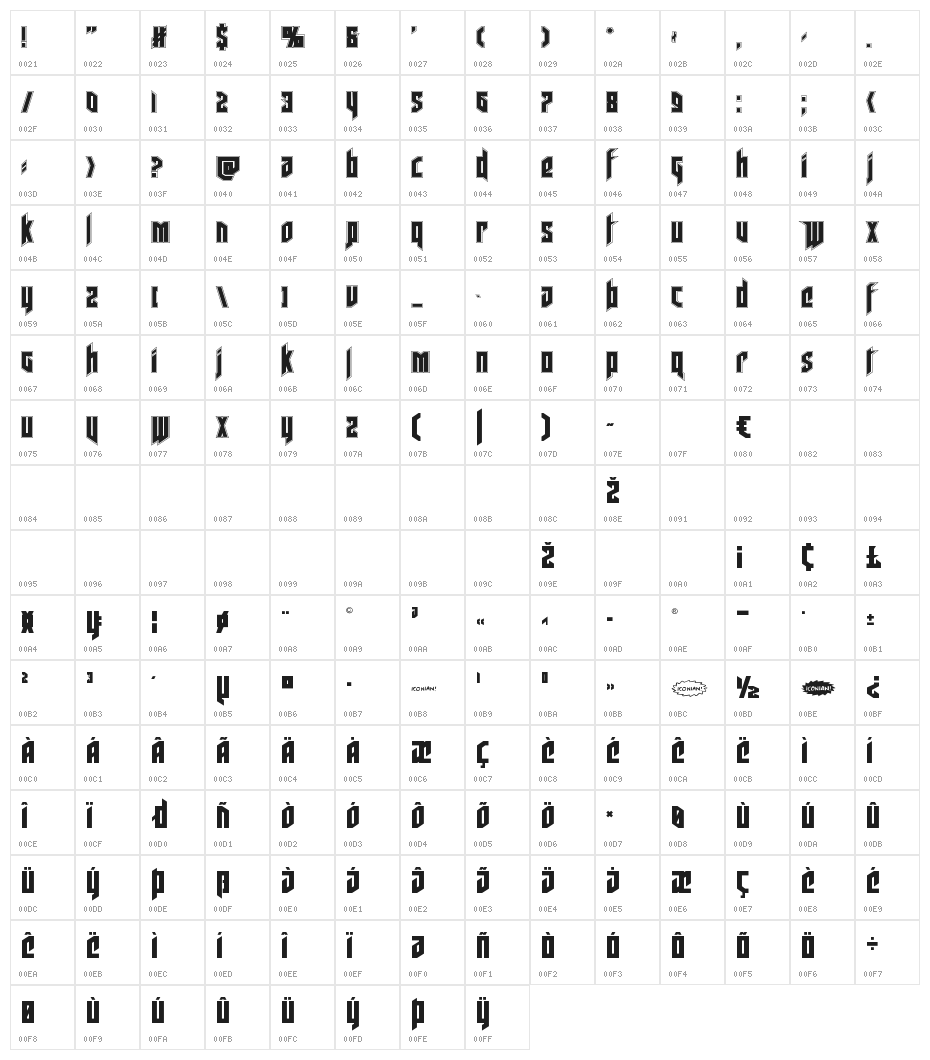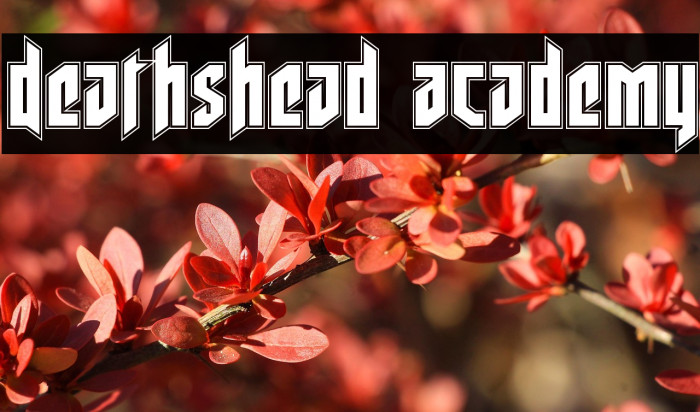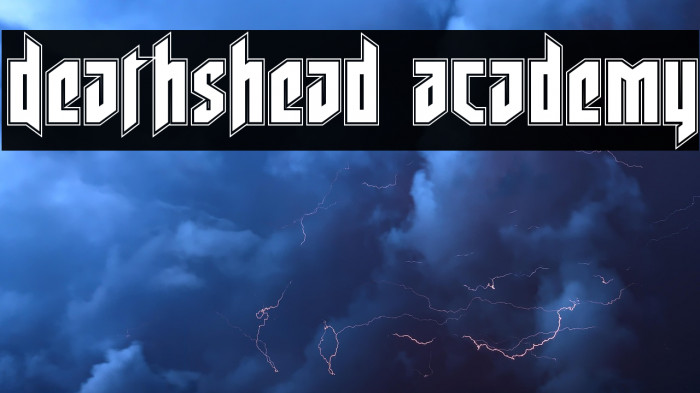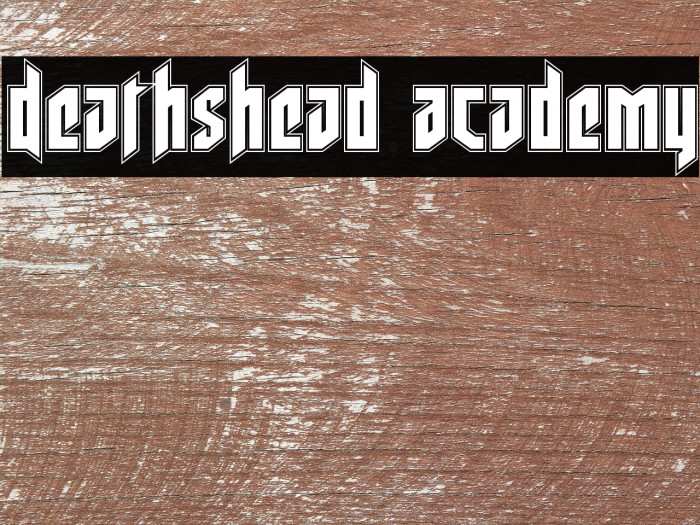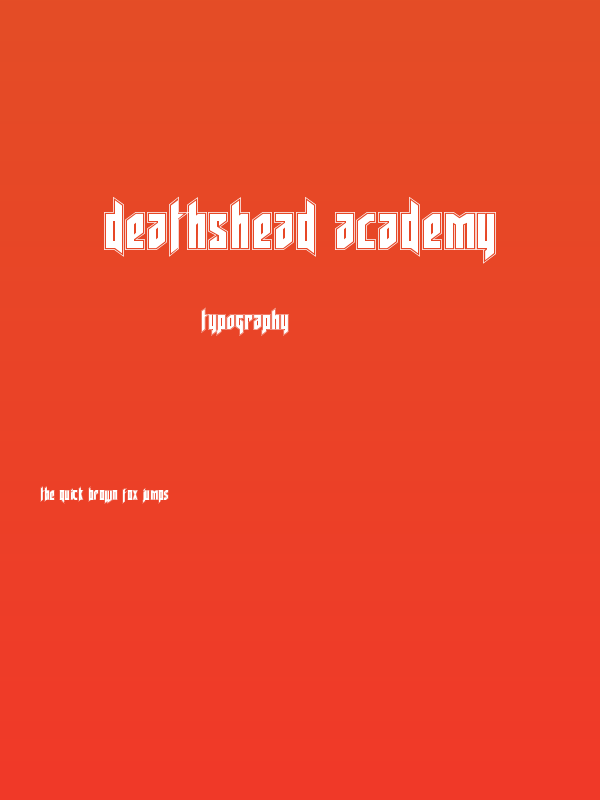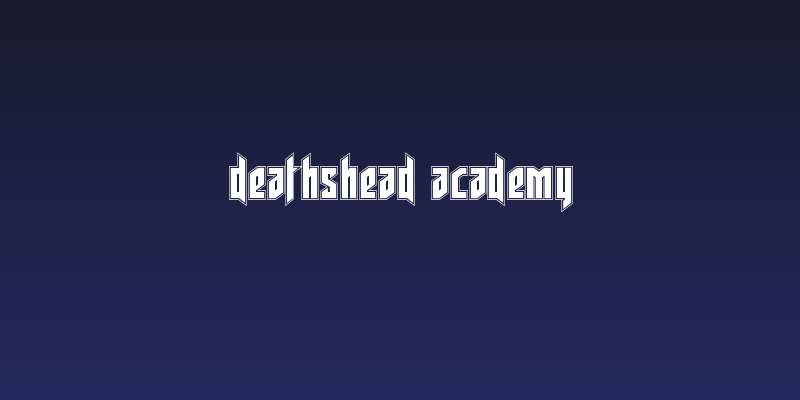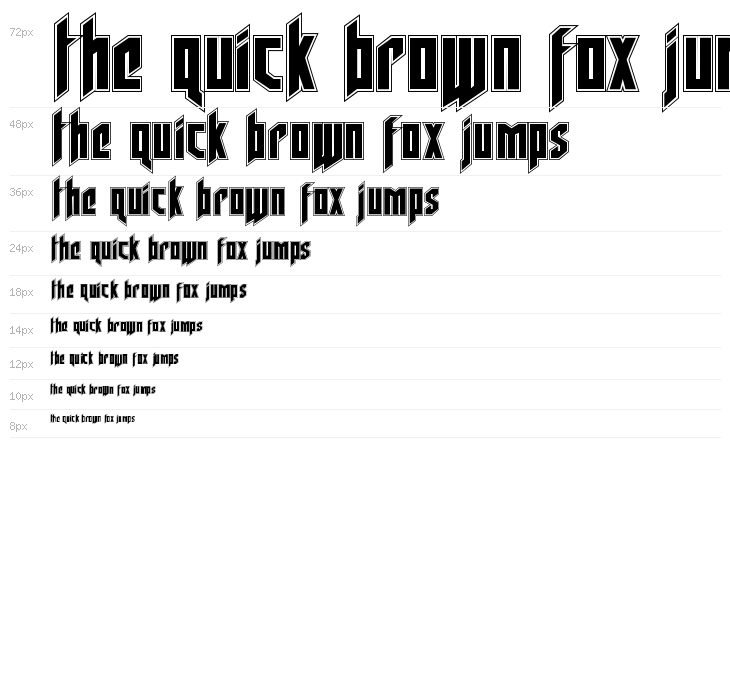
Deathshead Academy Font
Deathshead Academy Description
This font features a bold, angular design with a strong, gothic influence. The characters are sharply defined with a distinct blackletter style, giving it a dramatic and imposing appearance. The uppercase and lowercase letters maintain a consistent style, with sharp edges and pointed serifs that enhance its medieval aesthetic. The numbers and special characters follow the same design principles, ensuring uniformity across all glyphs. This font's unique style makes it ideal for projects that require a bold and striking visual impact.
| Overall Style | Gothic, Decorative |
| Proposed Projects | Ideal for album covers, posters, branding for edgy or alternative products, and any design needing a dramatic, gothic touch. |